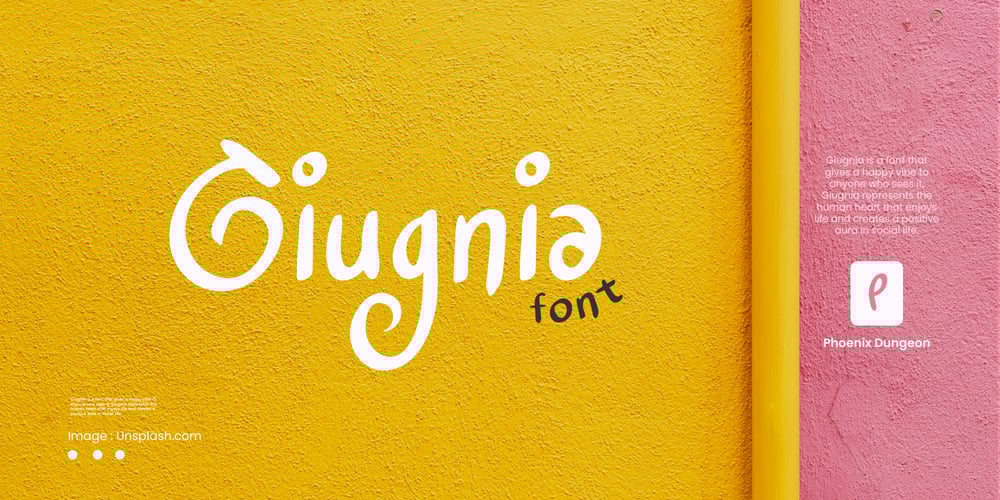
Giugnia
Giugnia font
Giugnia Font Family was designed by Alif Naufal Muzakki and published by Phoenix Group. Giugnia contains 1 styles and family package options. Giugnia is a font that gives a happy vibe to anyone who sees it, Giugnia represents the human heart that enjoys life and creates a positive aura in social life.